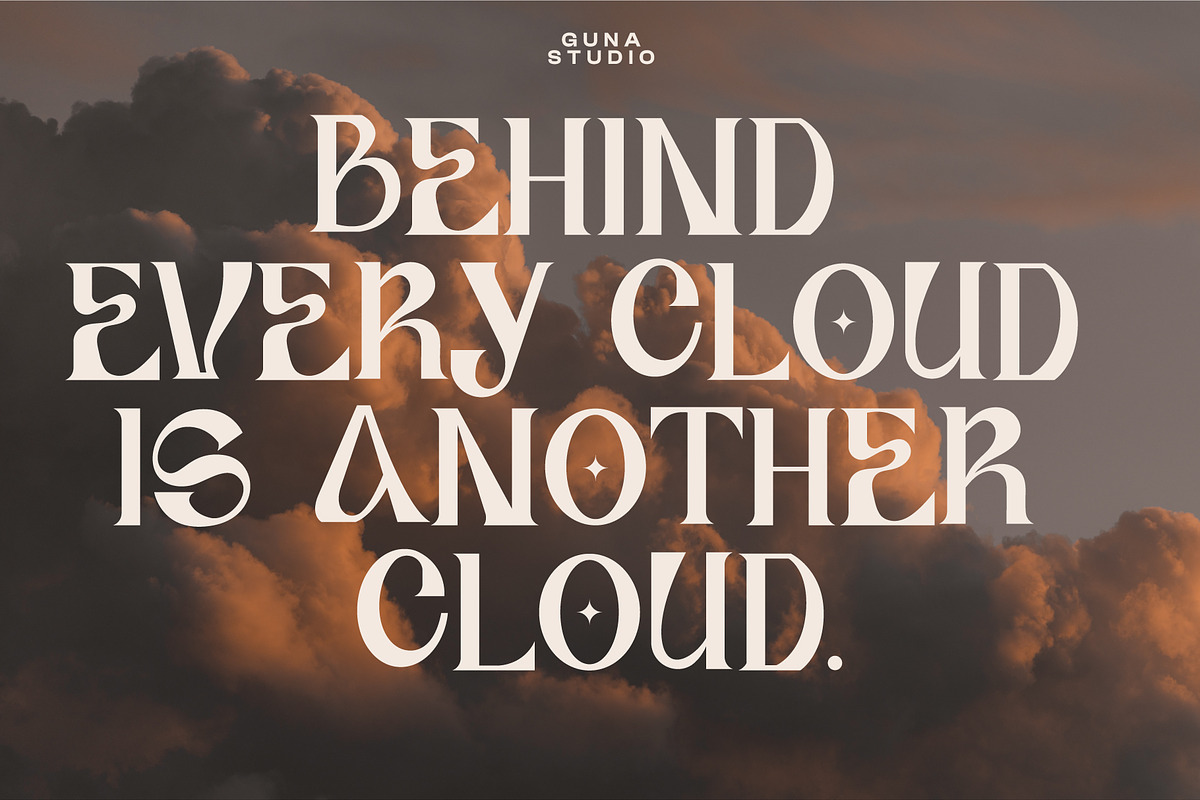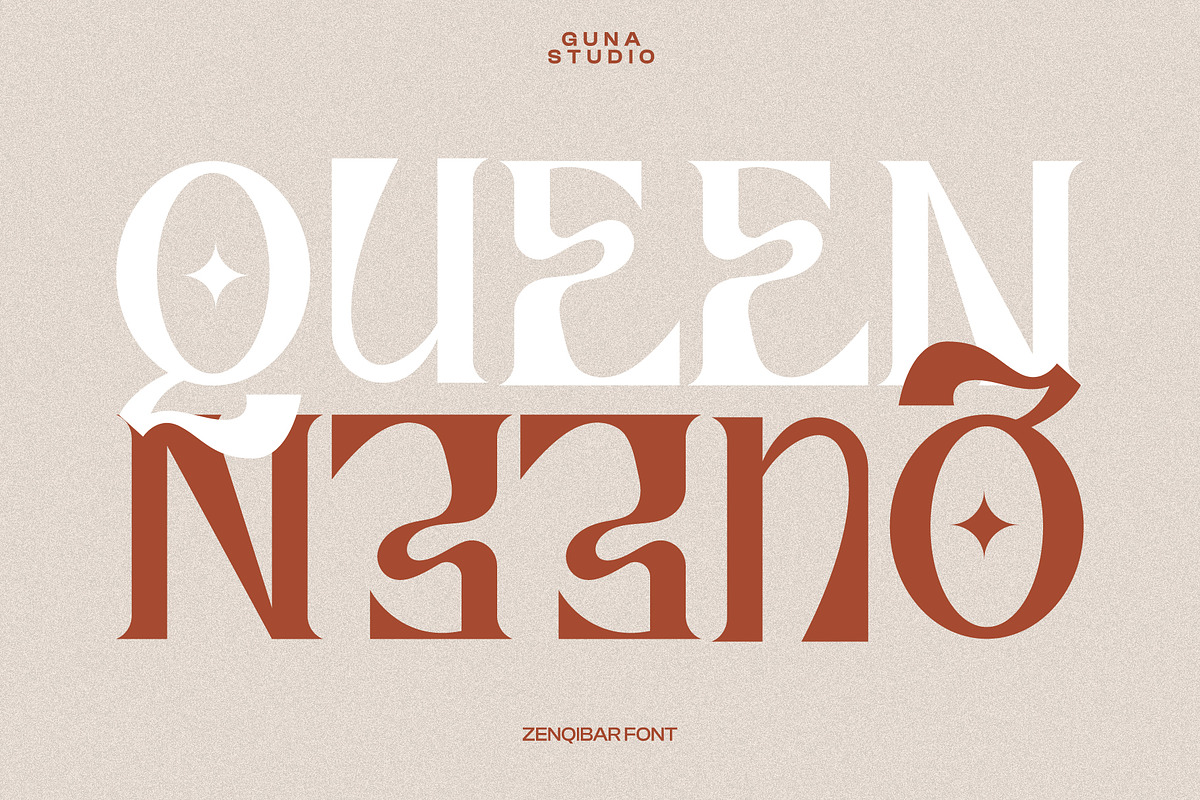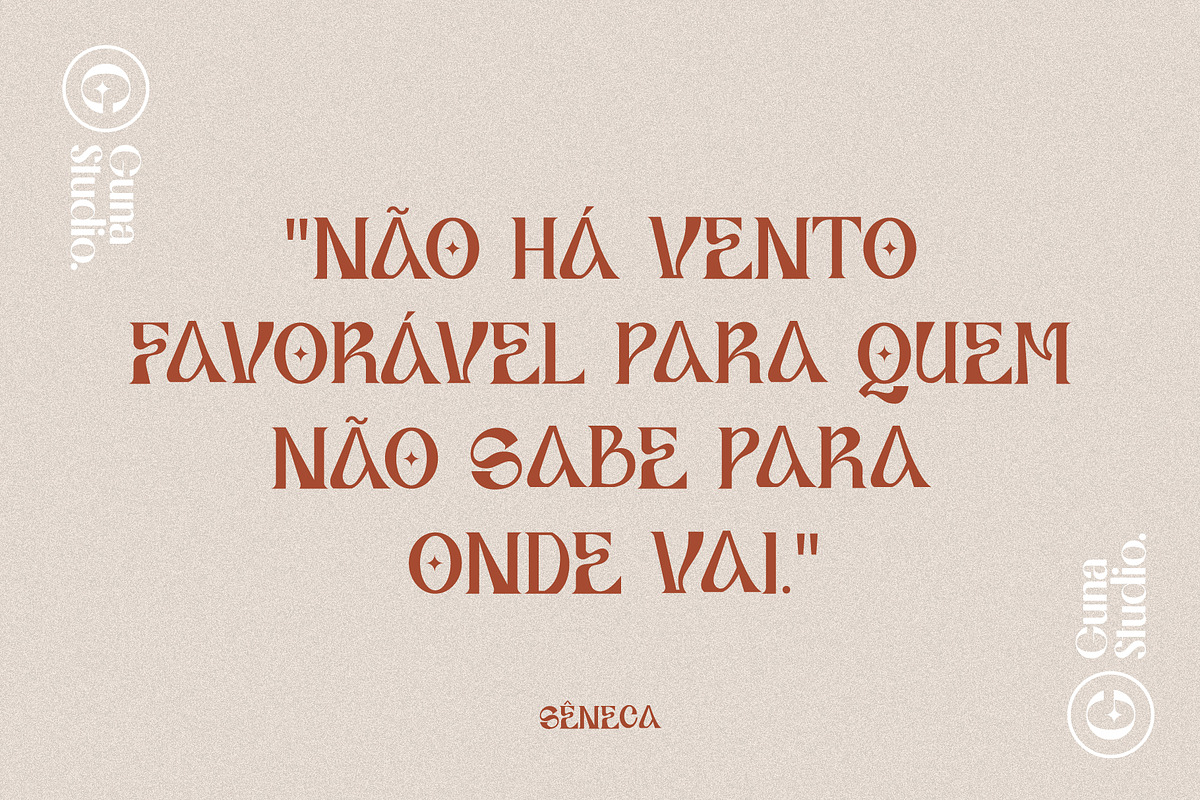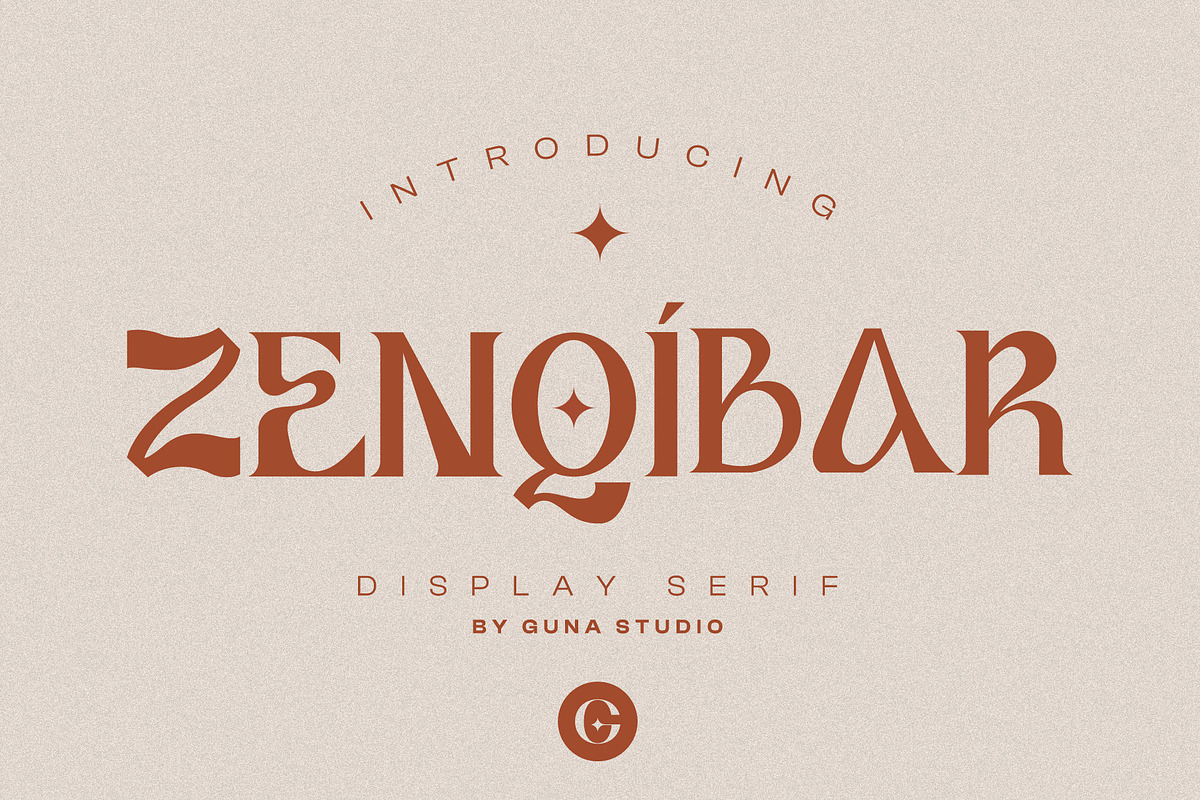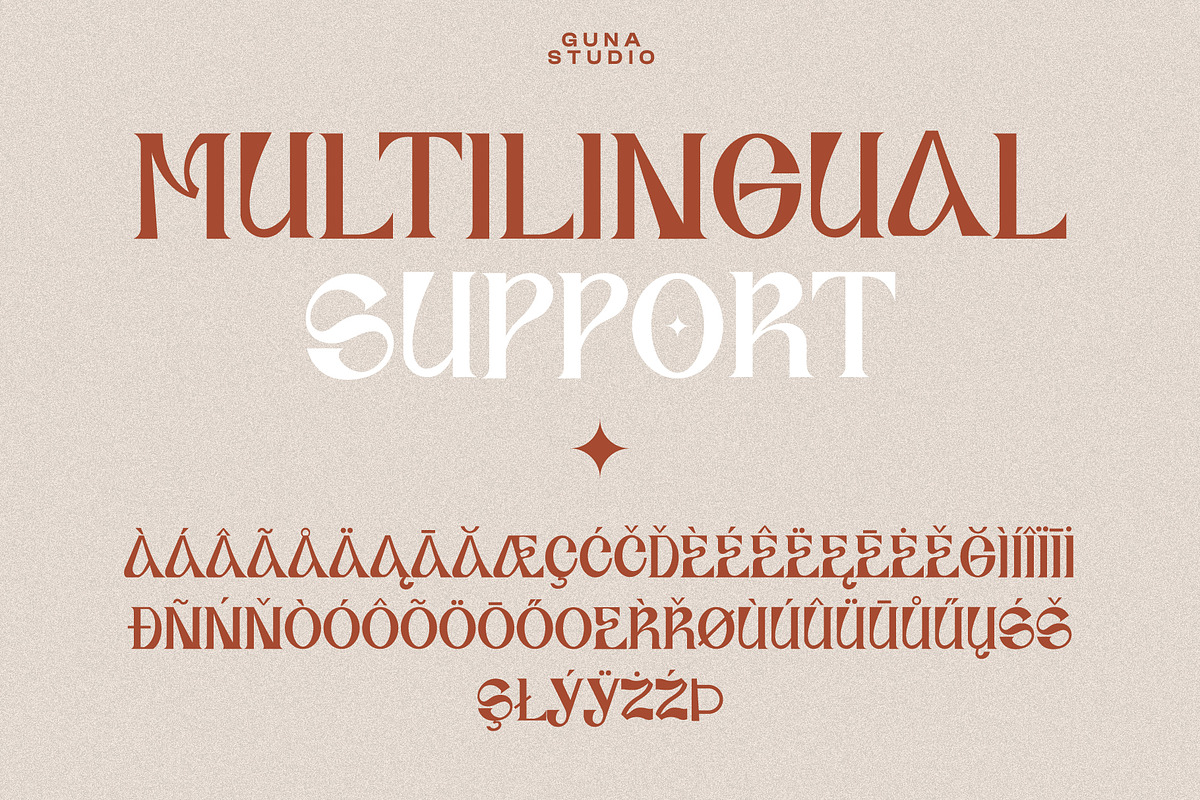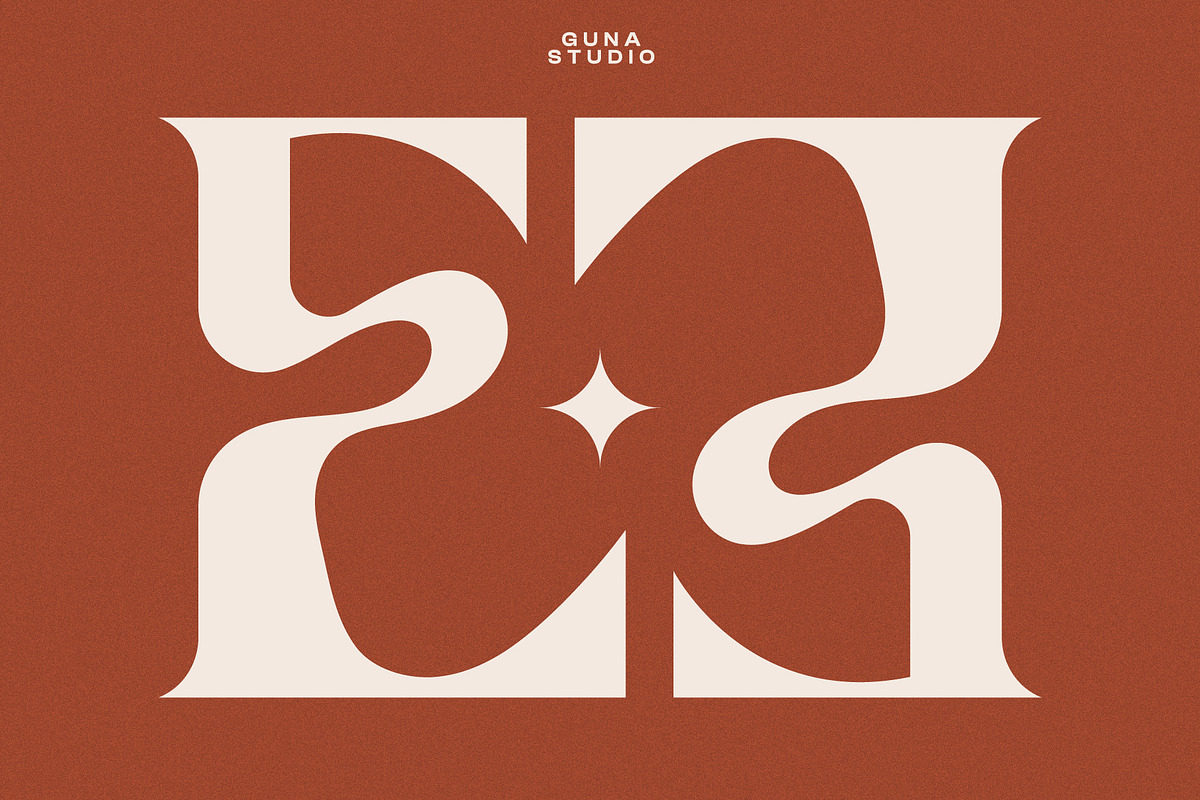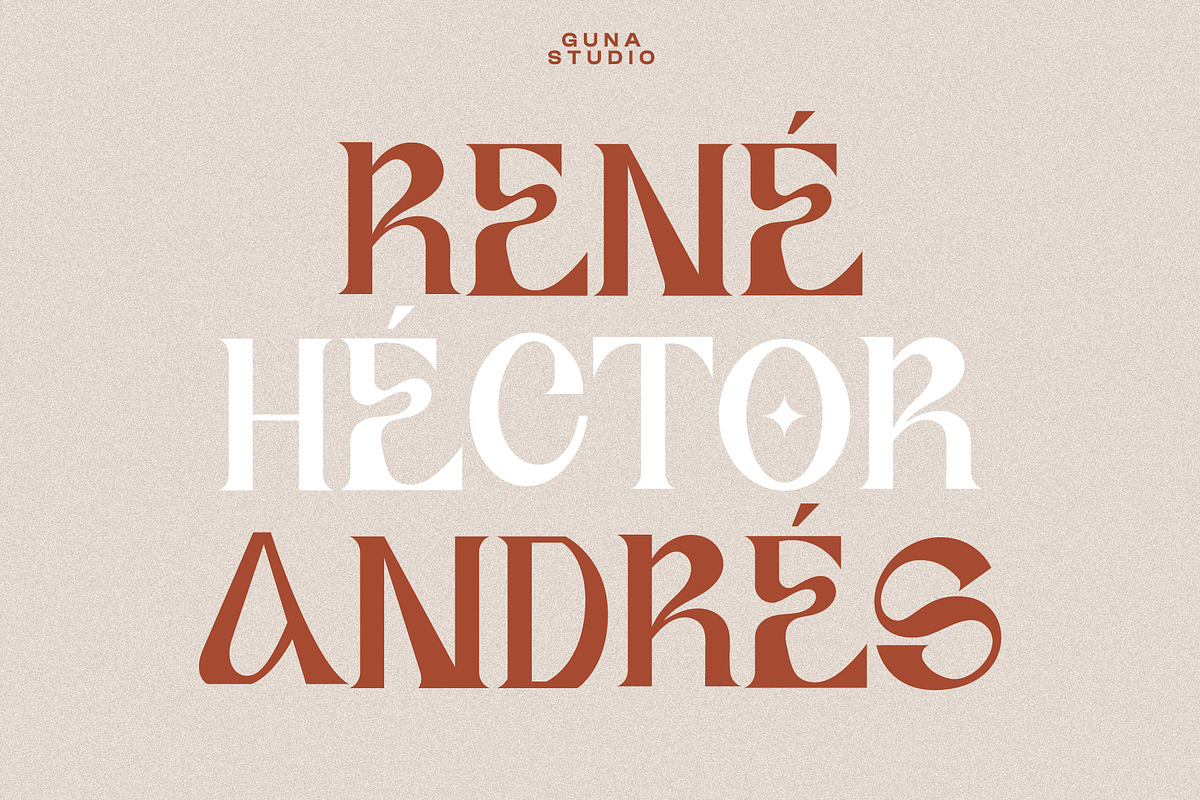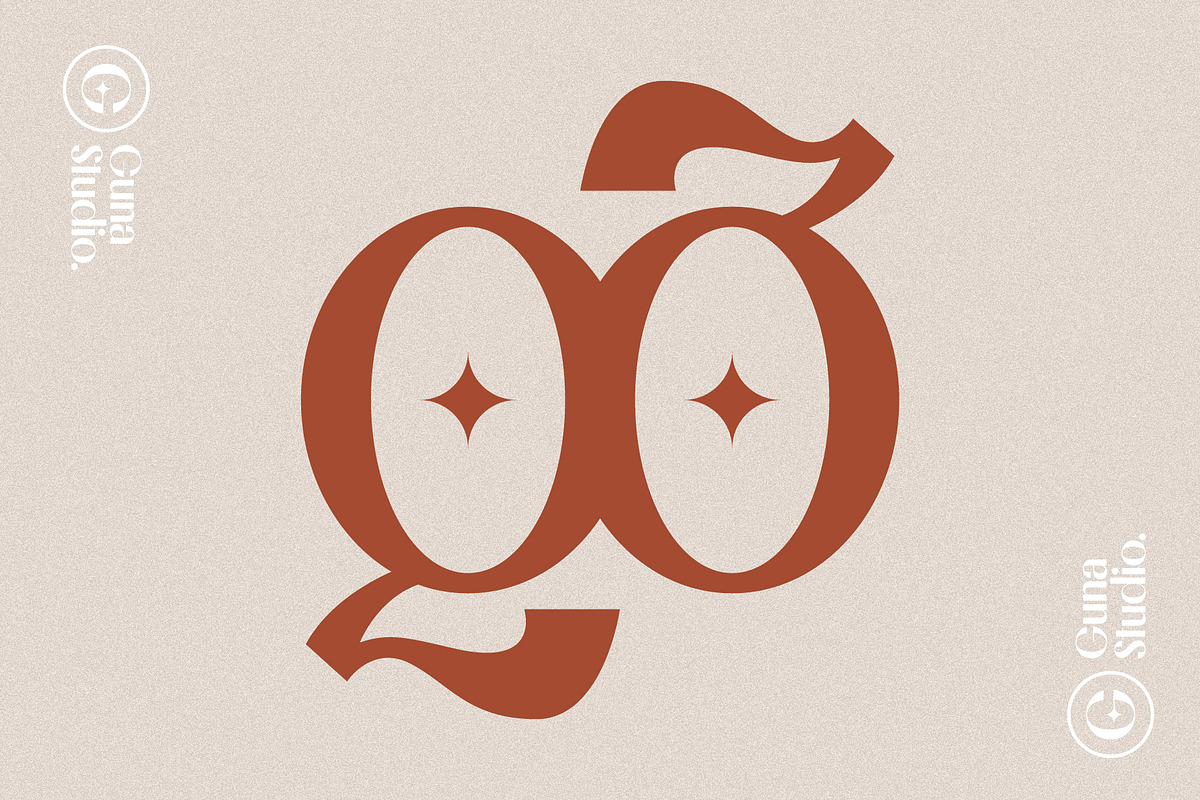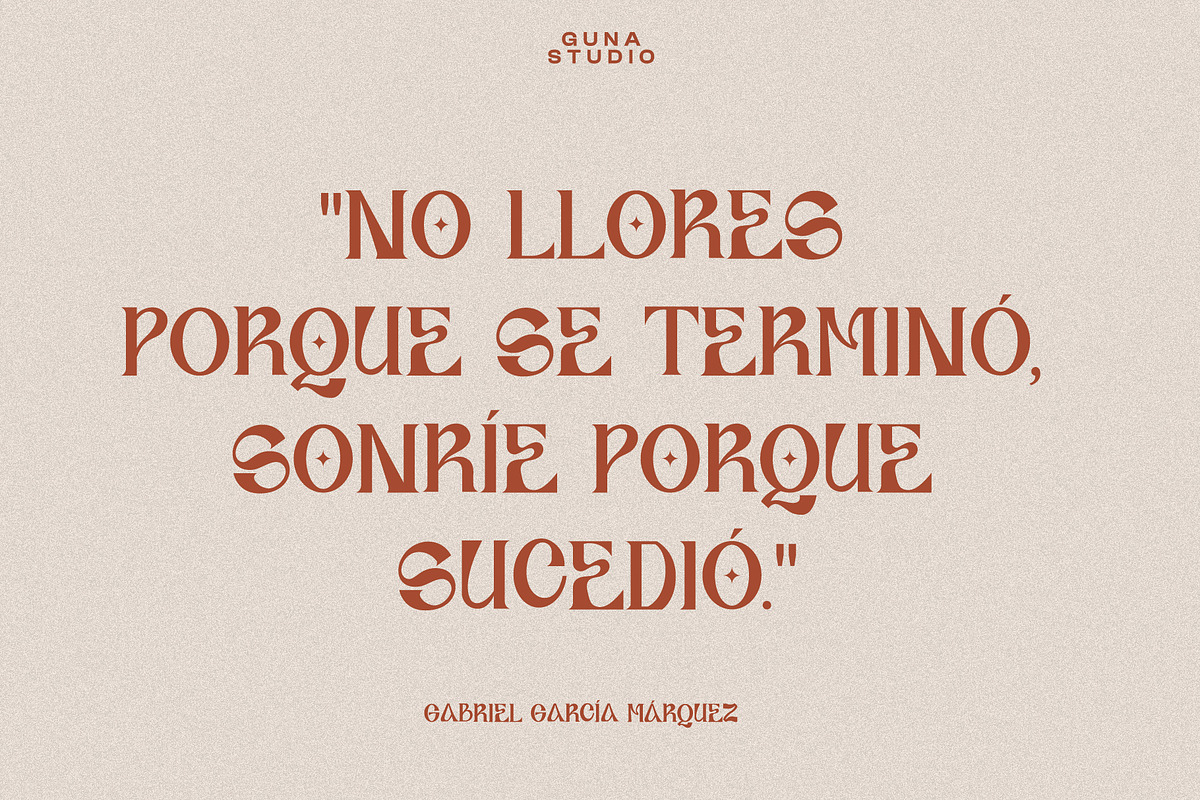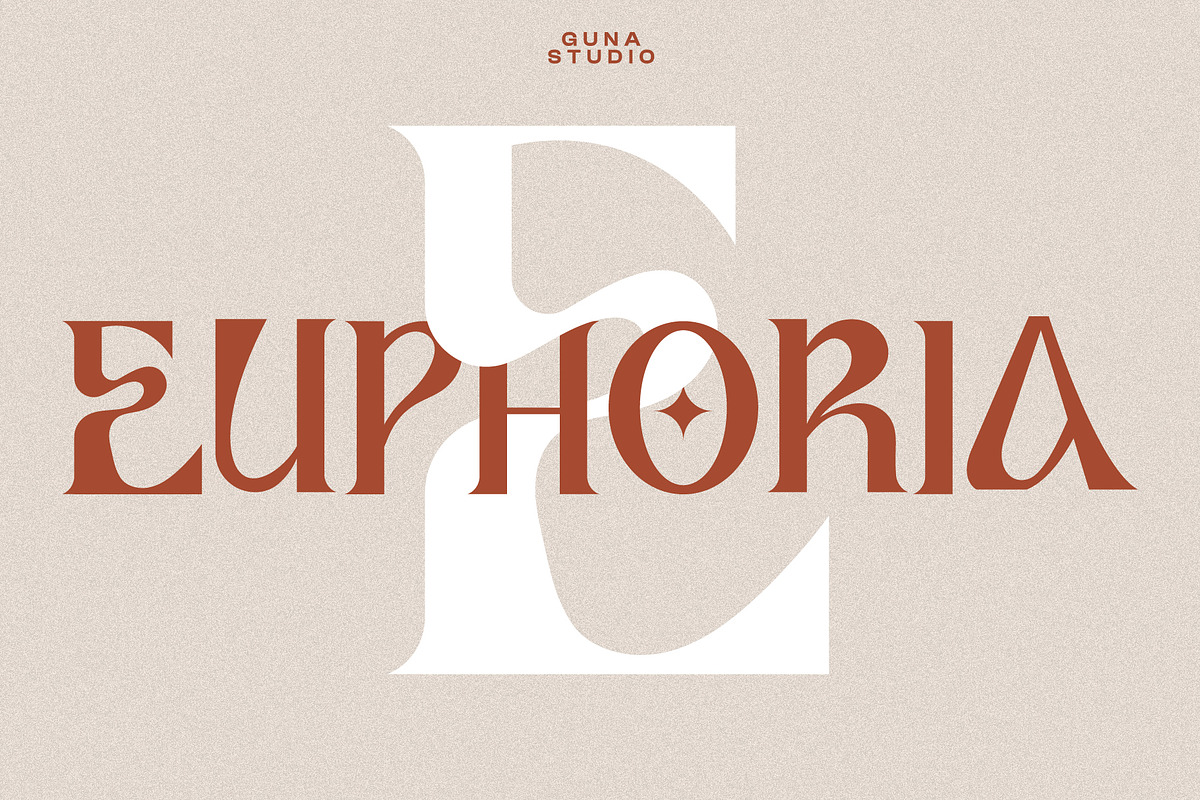
ZENQIBAR - Display Serif
Proudly Introducing the New Font: ZENQIBAR DISPLAY SERIF FONT
ZENQIBAR DISPLAY SERIF FONT will be perfect for many different projects such as logos & branding, invitation, poster, flyer, wedding designs, social media posts, advertisements, product packaging, product designs, label, photography, watermark, special events or movie poster title just like what I did on the preview above.